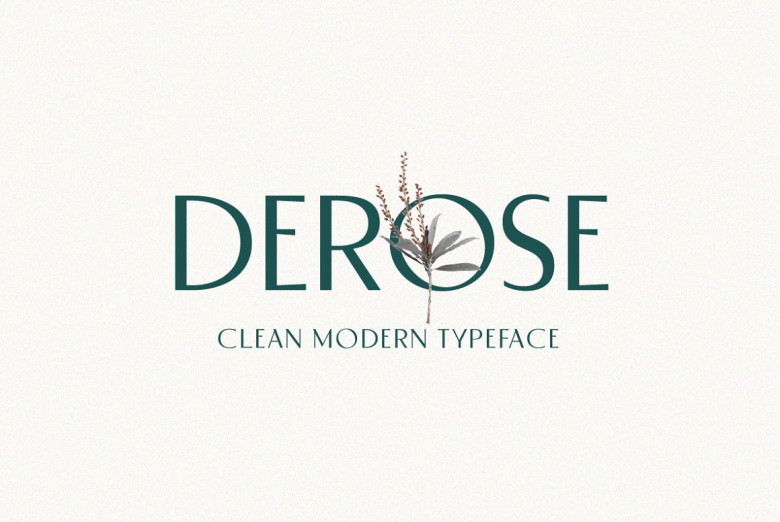
Derose Font
Derose Modern Font is a contemporary font with a minimalist, sharp design, exuding professionalism with each letter featuring clear lines, balanced proportions and optimal legibility.
Derose Clean Modern font is ideal for graphic design projects such as posters and brochures, web displays and logos.
Derose Clean Modern Sans Serif Font